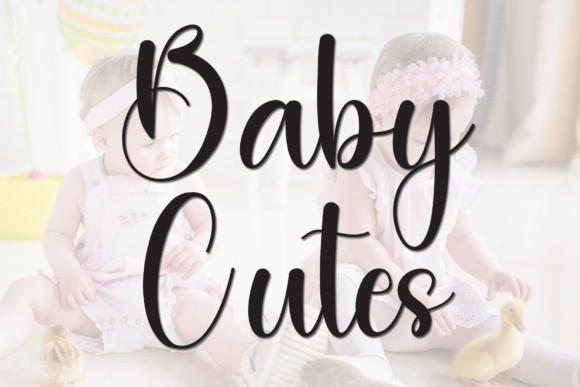
Baby Cutes Font: Handwritten Charm for Makers
The glow of my desk lamp was the only light in the studio as I stared at the blank cream-colored label in front of me. My latest batch of lavender and honey soy candles had cured perfectly, but something was missing from the packaging. The minimalist sans serif font I usually relied on felt too clinical, too cold for a product meant to evoke warmth and comfort. I needed typography that felt as handmade as the candle itself. That is when I opened my design software and selected Baby Cutes. As the letters flowed across the screen, forming the words "Lavender Honey" with a heartwarmingly tasteful rhythm, the label finally made sense. This wasn't just text; it was a feeling. For crafters and small business owners, finding a typeface that bridges the gap between professional polish and personal touch is often the hardest part of product development, and this script font delivers exactly that balance.
Elevating Product Labels and Packaging Design
In the world of handmade goods, your packaging is the first physical interaction a customer has with your brand. When designing labels for jars, bottles, or boxes, readability must dance with aesthetics. Baby Cutes shines here because its handwritten script style retains excellent legibility even at smaller sizes, which is crucial for ingredient lists or scent descriptions. Unlike overly ornate display fonts that become illegible when scaled down for a 2x2 inch sticker, this typeface maintains its structural integrity.
I recently tested this font on a series of boutique tags for a linen napkin set. The goal was to create a tag that looked like it had been hand-lettered with a fountain pen, yet consistent enough for a cohesive shop identity. Using Baby Cutes for the product name created an immediate sense of artisanal quality. It signaled to the buyer that care went into every detail. For makers using cutting machines like Cricut or Silhouette, the smooth curves and connected ligatures in this font are a dream. There are no jagged edges or impossibly thin hairlines that tear during the weeding process, making it a reliable choice for vinyl decals on mugs, tumblers, and glassware.
Creating Emotional Connections Through Stationery
Typography carries emotional weight, especially in the stationery and invitation market. When designing wedding welcome boards or birthday invitations, the font sets the tone before the guest even reads the details. Baby Cutes offers a fancifully sophisticated touch that feels celebratory without being stuffy. It works beautifully for names, titles, and short phrases where you want the text to act as a primary visual element.
While working on a suite of printable wall art, I found that this font pairs exceptionally well with modern editorial layouts. For a nursery print featuring a child’s name, the soft, rounded terminals of the letterforms added a layer of tenderness that a standard serif font simply could not achieve. However, it is important to remember that while Baby Cutes is stunning for display use, it is best reserved for headlines, names, and decorative wording. For longer paragraphs of text, such as event details or product instructions, pairing it with a clean sans serif or a simple serif font ensures your design remains accessible and easy to read. This contrast between the expressive script and structured body text creates a professional hierarchy that guides the viewer’s eye naturally.
Versatility Across Digital and Physical Mediums
One of the greatest assets for any creative seller is versatility. A premium font should earn its keep by working across multiple revenue streams. Baby Cutes transitions seamlessly from physical merchandise to digital downloads. When creating social media graphics or listing images for an Etsy shop, this typeface adds a human element that stops the scroll. In a sea of generic templates, the unique allure of a genuine handwritten script stands out.
For those creating digital planners or journaling kits, this font can be used to create pre-designed headers or decorative stickers within the digital file. Because the style is distinct yet neutral, it fits various niches, from farmhouse decor to modern baby products. I have used it effectively on tote bag designs where the text needs to be large and bold, as well as on delicate tissue paper stamps for shipping. The key is understanding the mood of your specific project. If you are aiming for high-end luxury, increase the tracking slightly to let the letters breathe. If you are going for a playful, casual vibe, tighten the spacing to mimic natural handwriting.
Practical Considerations for Commercial Creators
Before integrating any new typeface into your production workflow, due diligence is essential. Always verify the commercial licensing terms included with Baby Cutes to ensure you are covered for your intended use, whether that is selling physical products, offering editable templates, or distributing digital printables. Licensing protects both the designer and your business.
Additionally, explore the full character set. Many script fonts in the Script Amp category include valuable extras like alternate characters, swashes, and ligatures that can customize the look of your design. Utilizing these features prevents your branding from looking repetitive. For example, using a swash version of a capital letter at the start of a brand name can add a custom logo-design feel without hiring a graphic designer. Also, check for multilingual support if you serve an international customer base, ensuring accents and special characters match the core aesthetic of the font.
- Test Print First: Always print a test page at actual size before committing to a bulk run of labels or cards to check ink spread and legibility.
- Mind the Kerning: While Baby Cutes is designed with connecting strokes, manual kerning adjustments may be needed for specific word combinations to ensure natural flow.
- Contrast Matters: Ensure sufficient color contrast between the script font and the background material, especially on textured papers or dark fabrics.
This demonstrates the tangible power of thoughtful design. Whether you are crafting seasonal holiday tags, designing a signature logo for a bakery, or laying out a digital course workbook, the right typeface elevates the perceived value of your work. Baby Cutes provides that unique allure, transforming standard text into a design asset that resonates emotionally with your audience. By treating typography as a core component of your product rather than an afterthought, you create a cohesive, professional, and deeply appealing brand identity that keeps customers coming back.